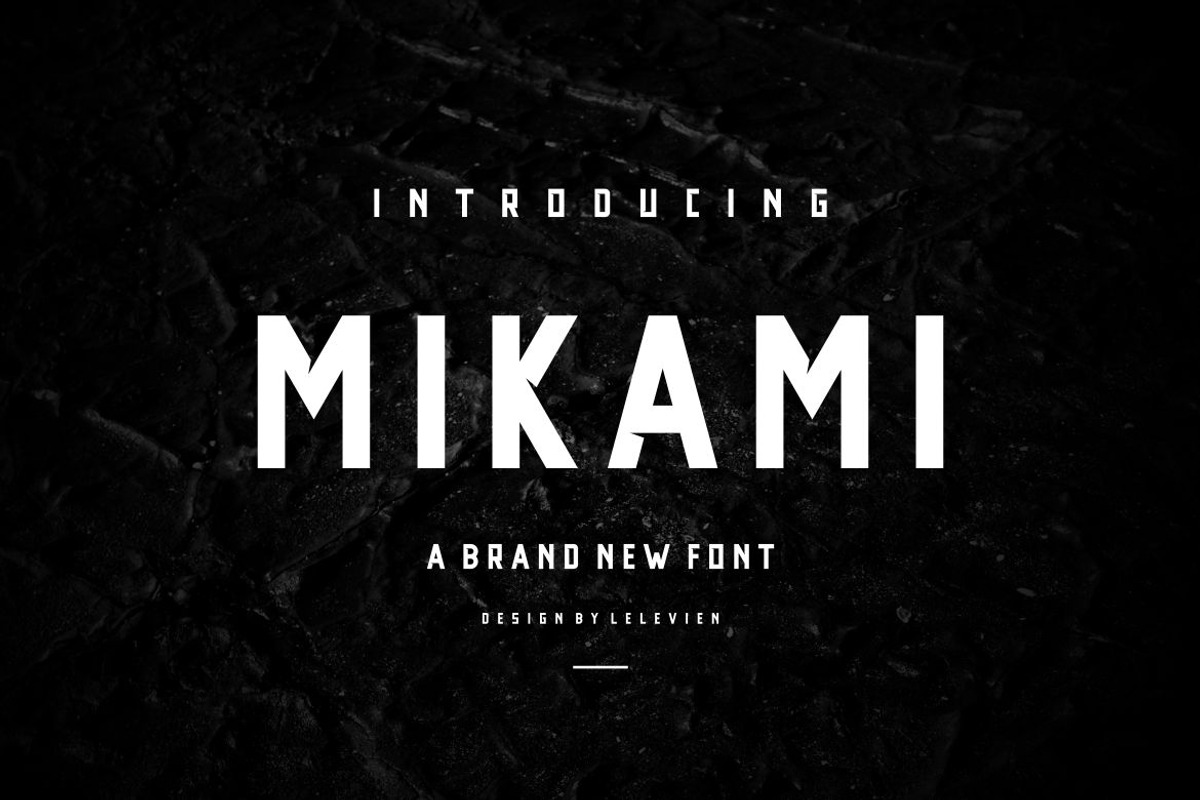
MIKAMI SERIF FONT
KOMAKU SERIF FONT is a bold and authentic display font. The font is suitable for any branding project like logo, t-shirt printing, esport, and many more. outstanding in a wide range of contexts.